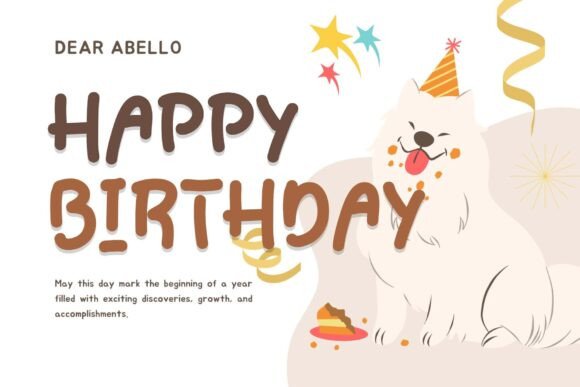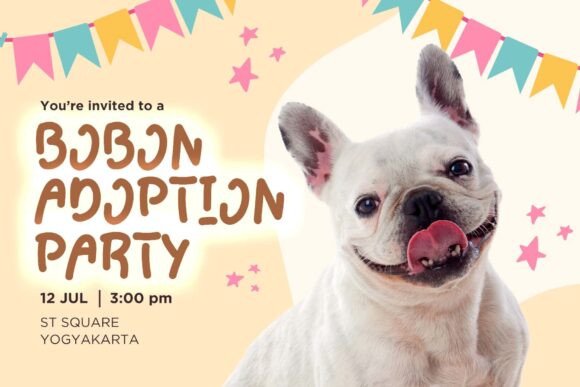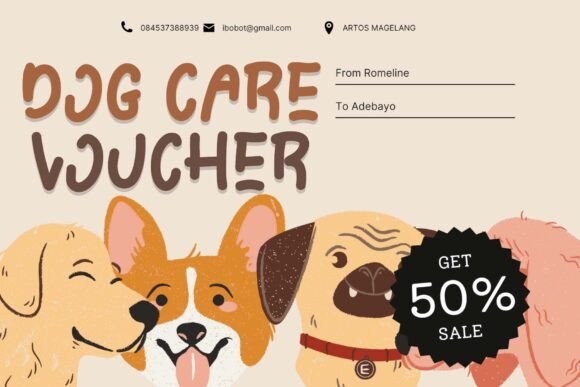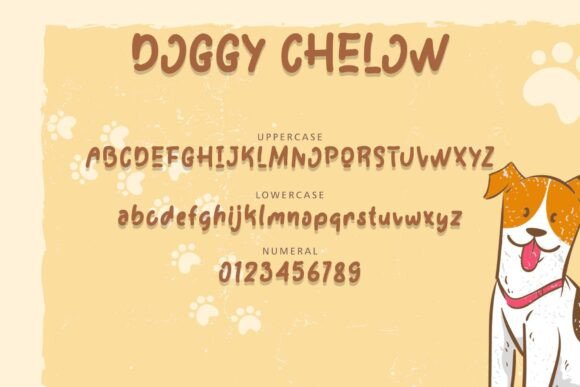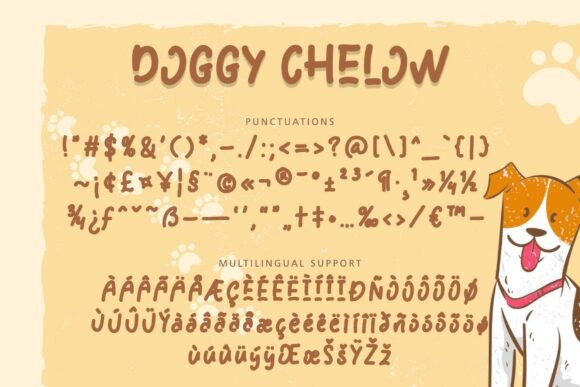
Introducing Doggy Chelow Font: The Ultimate Display Font for Designers and Crafters
Are you tired of using the same old fonts for your designs? Look no further! Doggy Chelow Font is here to add a touch of cuteness and uniqueness to your projects. This display font is perfect for designers and crafters who want to create eye-catching and engaging content. In this article, we’ll dive into the features and benefits of Doggy Chelow Font and explore its various uses.
What is Doggy Chelow Font?
Doggy Chelow Font is a cute and unique display font that is sure to capture the attention of your audience. It comes with a range of features, including uppercase, lowercase, numbers, punctuation, and multilingual support. This font is designed to be versatile and can be used for a variety of projects, from animal-themed designs to Christmas and Easter-themed content.
Key Features of Doggy Chelow Font
- Uppercase and Lowercase Letters: Doggy Chelow Font includes both uppercase and lowercase letters, making it perfect for creating titles, headings, and body text.
- Numbers and Punctuation: The font also includes numbers and punctuation marks, allowing you to create complete and cohesive designs.
- Multilingual Support: Doggy Chelow Font supports multiple languages, making it a great choice for designers who work with international clients or want to create content for a global audience.
- Cute and Unique Design: The font’s design is both cute and unique, making it perfect for creating eye-catching and engaging content.
Uses of Doggy Chelow Font
Doggy Chelow Font is a versatile font that can be used for a variety of projects, including:
- Animal-themed Designs: The font’s cute and playful design makes it perfect for animal-themed designs, such as posters, stickers, and branding materials.
- Comic and Cartoon-style Content: Doggy Chelow Font is also great for creating comic and cartoon-style content, such as comic books, cartoons, and animated videos.
- Christmas and Winter-themed Content: The font’s festive design makes it perfect for Christmas and winter-themed content, such as holiday cards, posters, and decorations.
- Easter and Spring-themed Content: Doggy Chelow Font can also be used for Easter and spring-themed content, such as Easter egg designs, spring posters, and more.
- Posters and Banners: The font’s bold and eye-catching design makes it perfect for creating posters and banners for events, promotions, and more.
- Branding and Sticker Designs: Doggy Chelow Font can also be used for branding and sticker designs, such as logos, business cards, and product labels.
- Print Materials: The font is also suitable for print materials, such as brochures, flyers, and magazines.
Benefits of Using Doggy Chelow Font
Using Doggy Chelow Font can bring a range of benefits to your designs, including:
- Unique and Eye-catching Designs: The font’s cute and unique design will help your designs stand out from the crowd.
- Versatility: Doggy Chelow Font can be used for a variety of projects, making it a great addition to your font library.
- Easy to Read: The font is easy to read, making it perfect for body text and headings.
- Multilingual Support: The font’s multilingual support makes it a great choice for designers who work with international clients or want to create content for a global audience.
Doggy Chelow Font is a versatile and unique display font that is perfect for designers and crafters who want to add a touch of cuteness and playfulness to their designs. With its range of features, including uppercase and lowercase letters, numbers, punctuation, and multilingual support, this font is sure to become a staple in your font library. Whether you’re creating animal-themed designs, comic and cartoon-style content, or Christmas and winter-themed content, Doggy Chelow Font is the perfect choice.